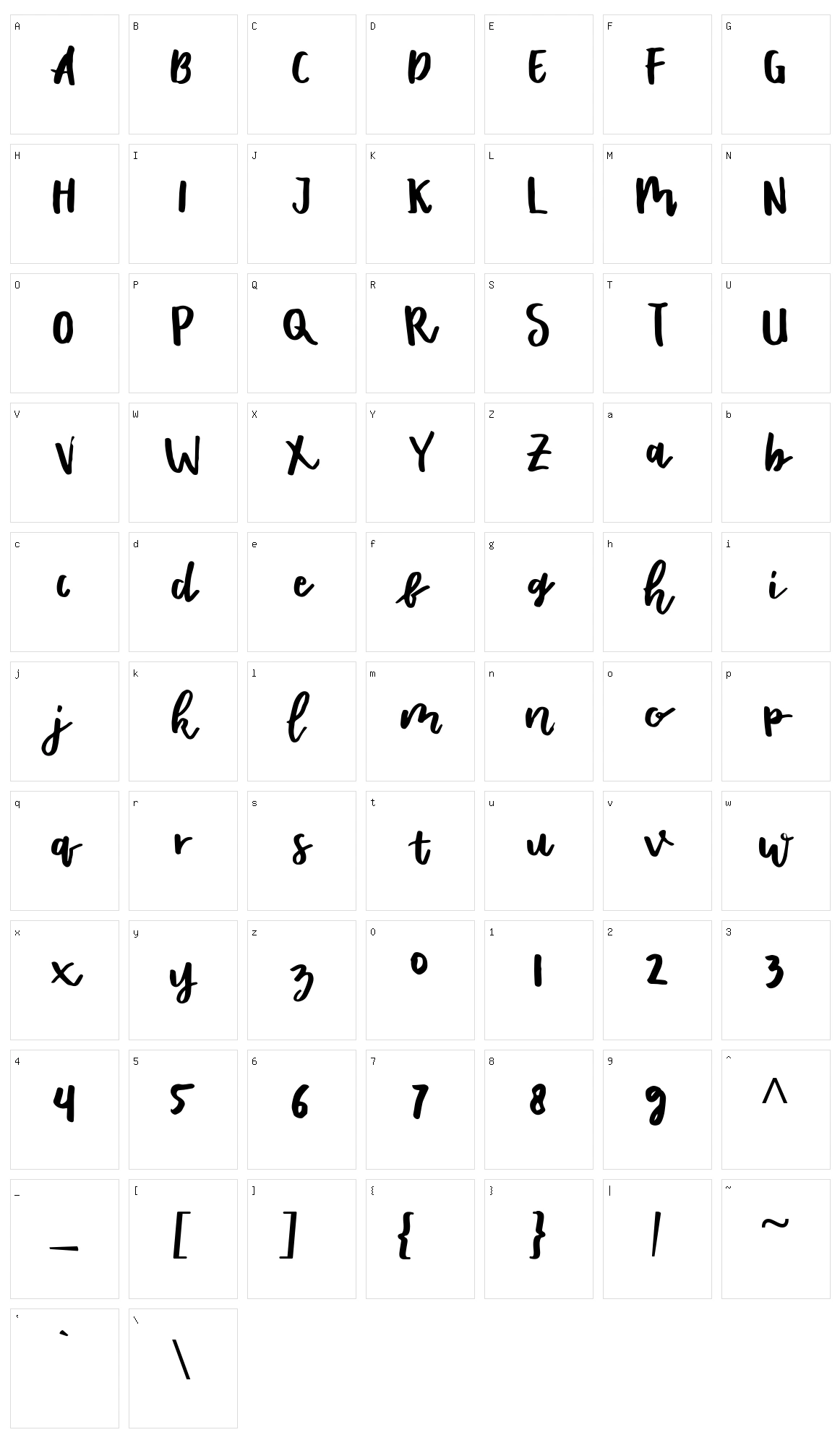
The free font Shella Rough is carefully designed by Masanis Studio, showcasing a thoughtful balance of creativity and usability and falls under the Script font style. When you download the ZIP file, it contains only 17.79 KB of font files, making it lightweight and quick to download. Please review the license details below to understand permitted usage and distribution rights. If license information is not available, we recommend using this font for personal projects only or contacting the author directly for commercial usage permissions.